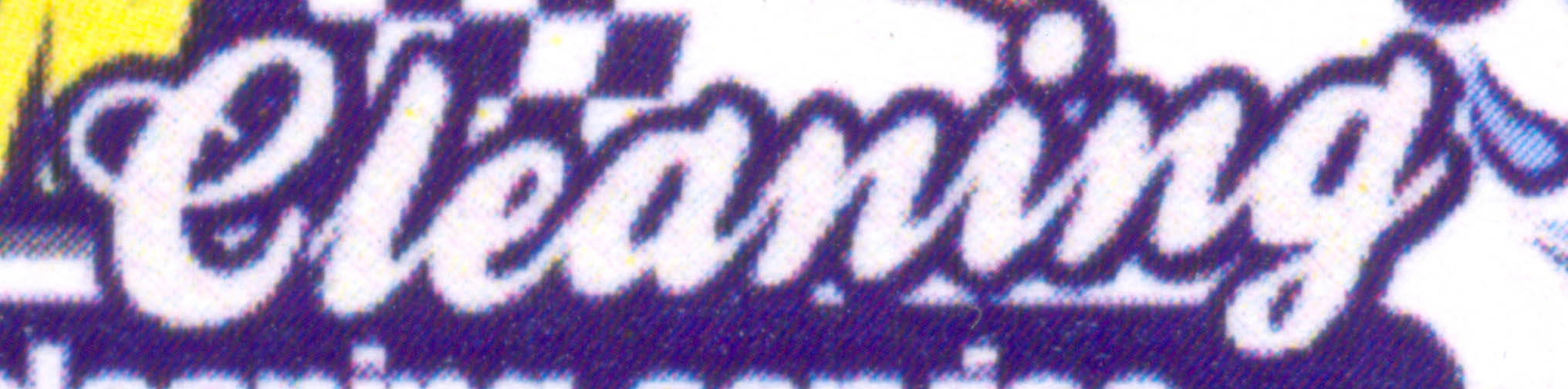
Looks like an outlined version of Kestrel, which is a Gerber font.
Thanks Jill – and now for the perhaps almost inevitable followup – can anybody supply "Cleaning" in Kestrel in curves.
Only if I can cut off the front leg on the "l"!
Do you just need "cleaning?"
It is only ‘Cleaning’ thanks. Go ahead and cut the front leg….
One is with an amputated leg, one is like what you have, and one has the Cl joined.